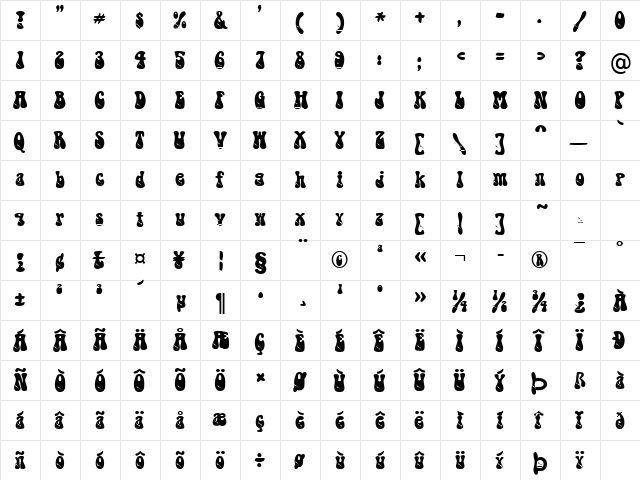
Swimstart Becker Normal Font Preview
Swimstart Becker Normal
Swimstart Becker Normal Font Details
Design Context for Swimstart Becker Typeface
Swimstart Becker is a composed and adaptable typeface that performs quietly and consistently across a wide range of design contexts.